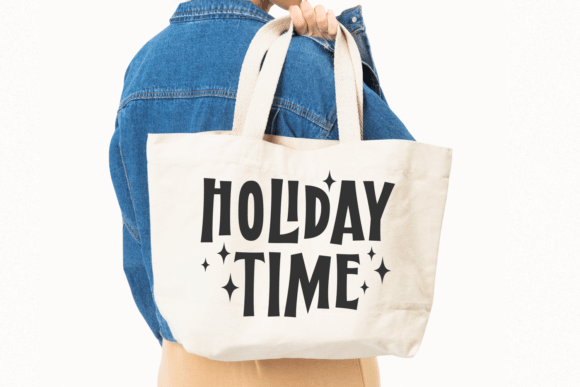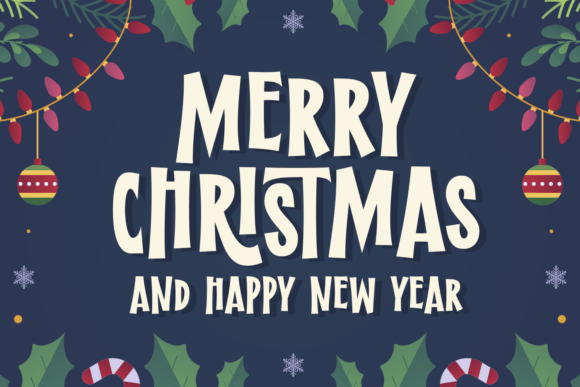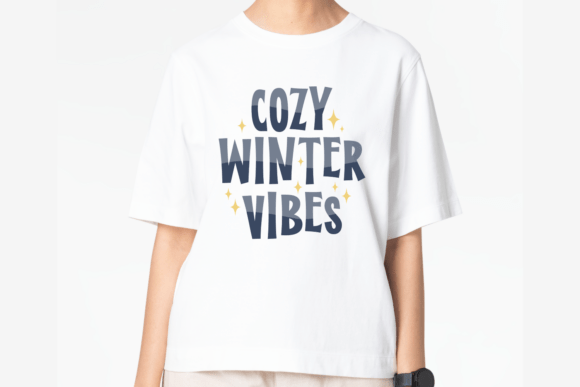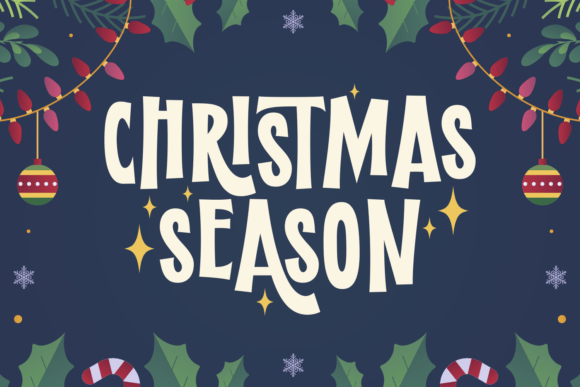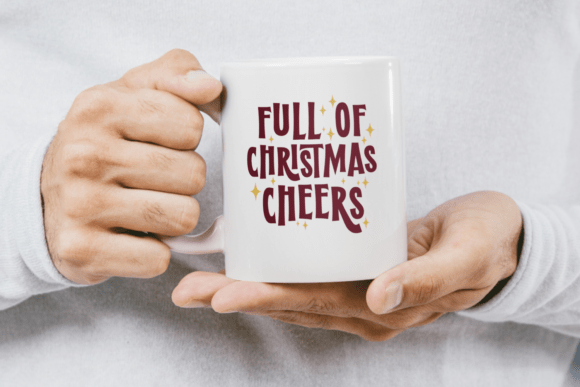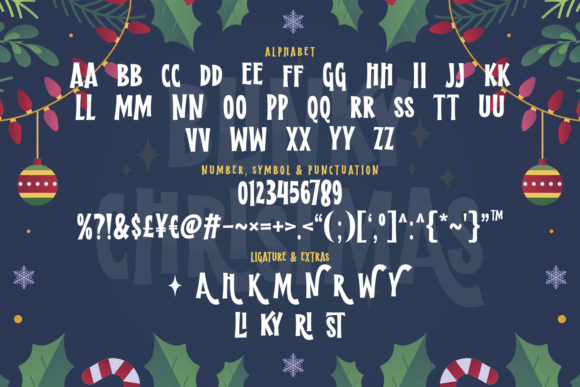
Deck the Halls with Design
As the snowflakes start to fall and the holiday lights begin to twinkle, many designers find themselves inspired to create festive and fun projects that capture the magic of the season. But sometimes, it’s the smallest details that can make all the difference in bringing a design to life. For me, it’s always been the fonts – the perfect combination of style and personality that can instantly set the tone for a project.
Enter the Blinky Christmas Font, a delightful display font that embodies the playful spirit of the holidays. With its bold and cheerful aesthetic, this font is the perfect addition to any Christmas project, from greeting cards to party invitations. Whether you’re a seasoned designer or a holiday enthusiast, the Blinky Christmas Font is sure to bring a touch of joy and whimsy to your work.
Blinky Christmas Font Key Features
- Unique Characteristics: Animated blinking effect, customizable color options, and a festive holiday design
Blinky Christmas Font Review
I recently had the chance to work with the “Blinky Christmas Font” and I must say, it’s a unique addition to any holiday design project. ✨ The font’s bold and playful style is sure to catch attention and add some festive cheer to your designs. The variety of animations and effects available can help bring your designs to life, making it perfect for animated GIFs or videos.
However, I did encounter some limitations while using the font. ⚠️ The animations can sometimes be a bit overwhelming, and it may be challenging to balance them with other design elements. Additionally, some of the animations may not be suitable for all types of designs or projects, so it’s essential to use them judiciously. Another limitation is the font’s compatibility with older software or systems, which may not support the latest animation effects.
- Unique and playful style ✨
- Varied animations and effects
- Perfect for animated GIFs or videos
- Compatible with most modern software and systems
- Can be overwhelming with too many animations
- May not be suitable for all types of designs or projects
The “Blinky Christmas Font” is a great addition to any holiday design project, but it may not be the best choice for all types of designs. If you’re looking to add some festive flair and animations to your project, this font is definitely worth considering. Just be sure to use it wisely and balance it with other design elements to avoid overwhelming your audience.
Use the Blinky Christmas Font to add a festive touch to your designs. Experiment with different font sizes, colors, and styles to create a unique look.
The Blinky Christmas Font is perfect for:
- Creating holiday-themed graphics and designs.
- Adding a festive touch to your website or social media posts.
- Designing holiday cards and invitations.